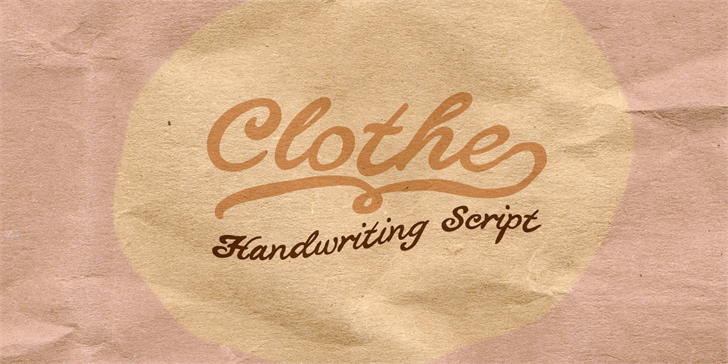
Free Clothe Font
Take a look at this adorable free clothe font. Font Space has created this amazing and beautiful free font. Amaze your fellow designers and create stunning designs with this beautiful font.